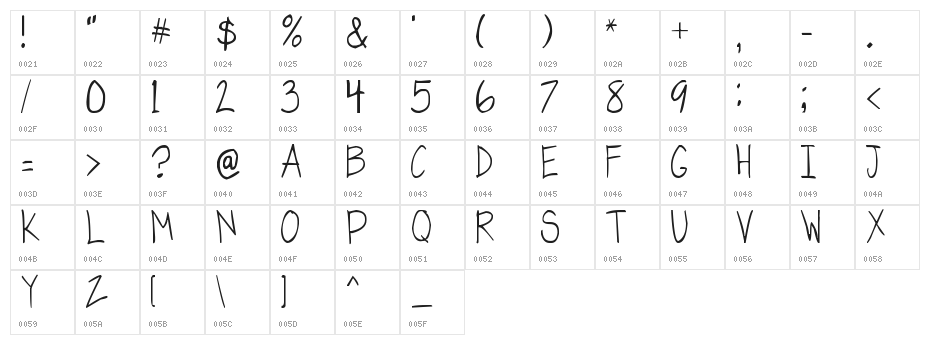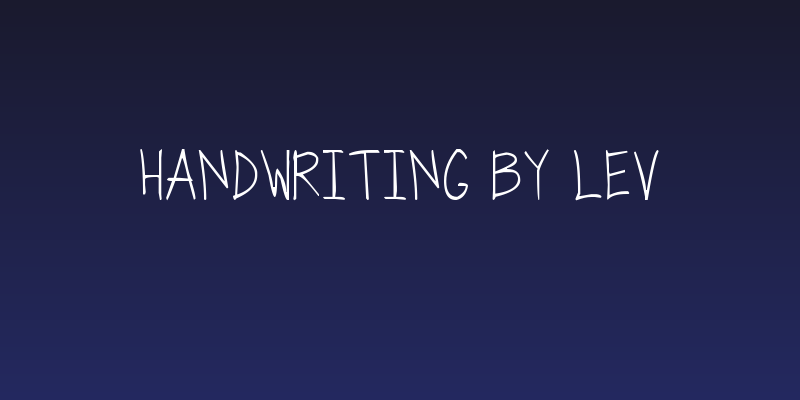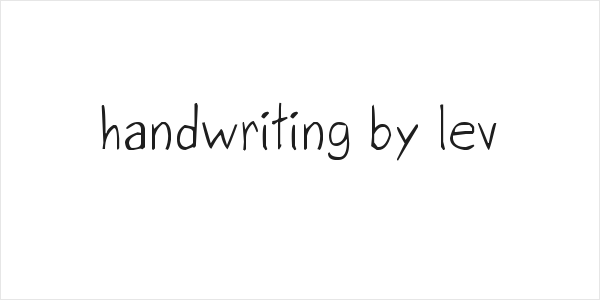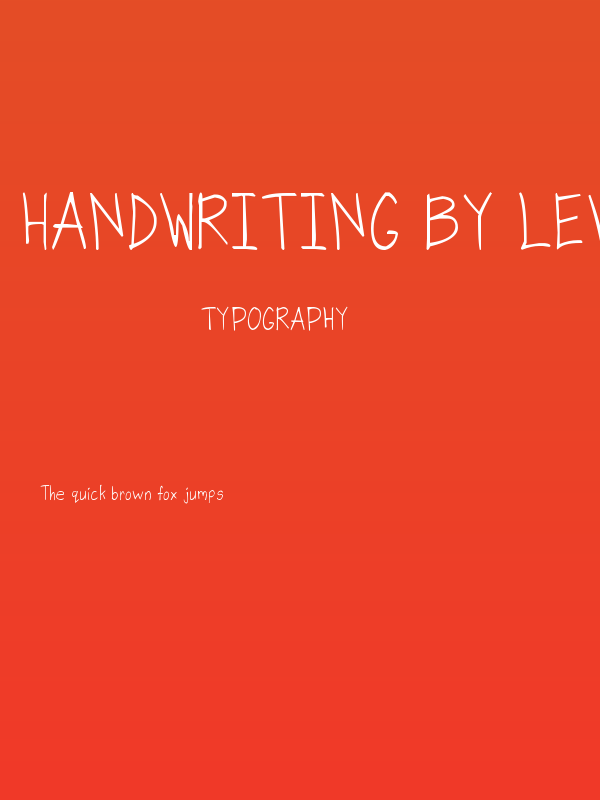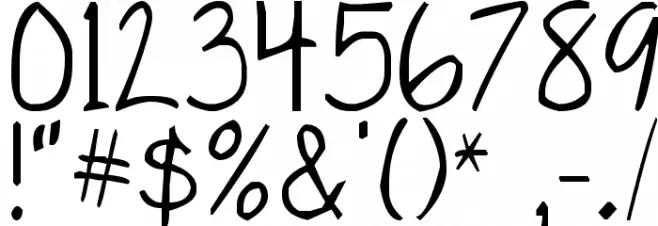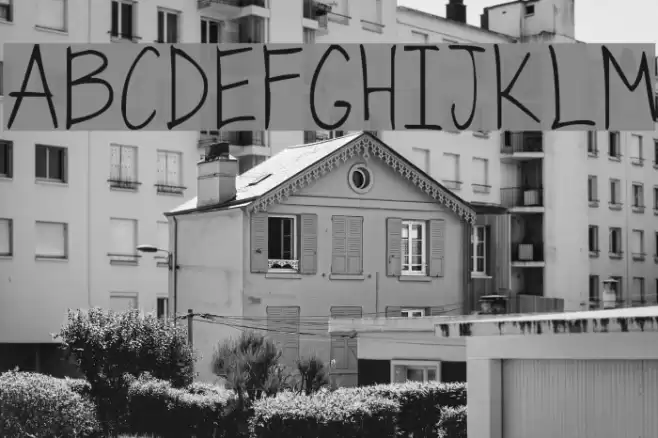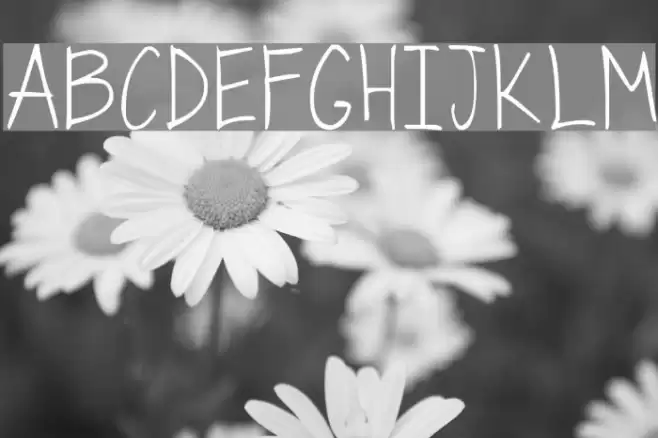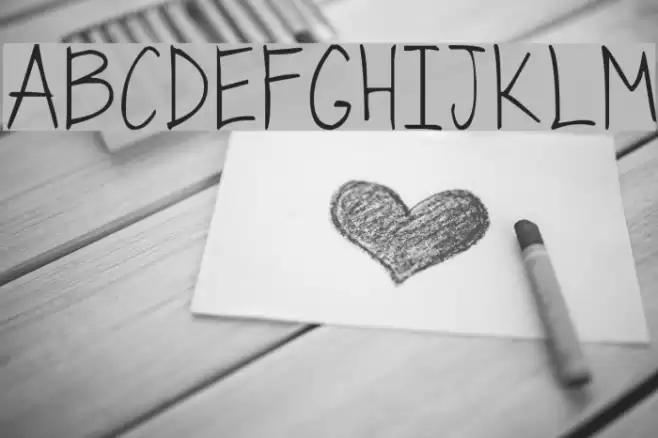
handwriting by lev Font
handwriting by lev Description
This font features a playful and casual handwritten style, characterized by its uneven strokes and organic flow. The uppercase letters are tall and slightly narrow, while the lowercase letters maintain a consistent height with a more rounded appearance. The numbers and special characters follow the same informal style, adding a touch of whimsy. The overall look is approachable and friendly, making it suitable for projects that require a personal touch. The font's irregularities give it a unique charm, reminiscent of natural handwriting.
| Overall Style | Casual |
| Use Case | Headlines, Informal text, Personal projects |
| Proposed Projects | Ideal for greeting cards, personal notes, children's books, and informal branding. |